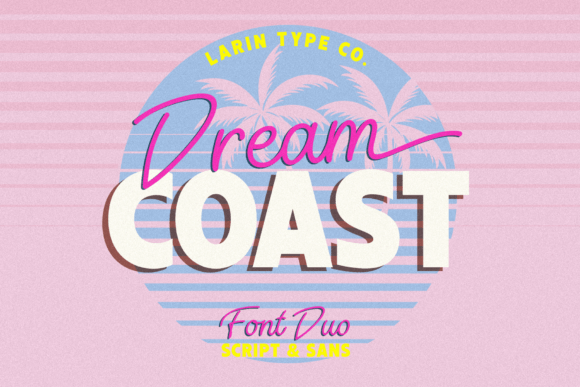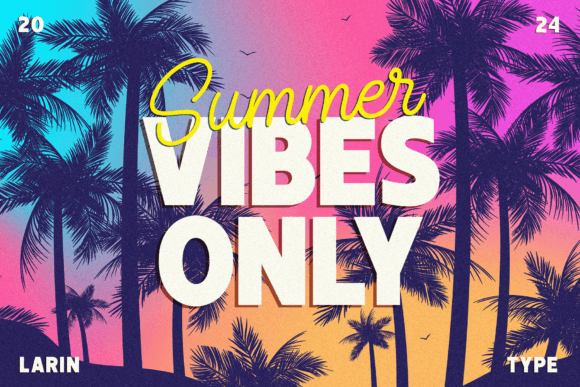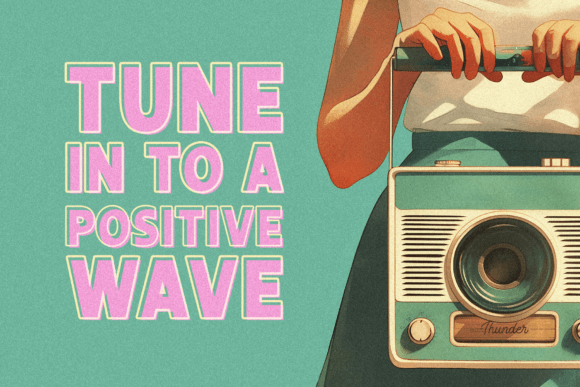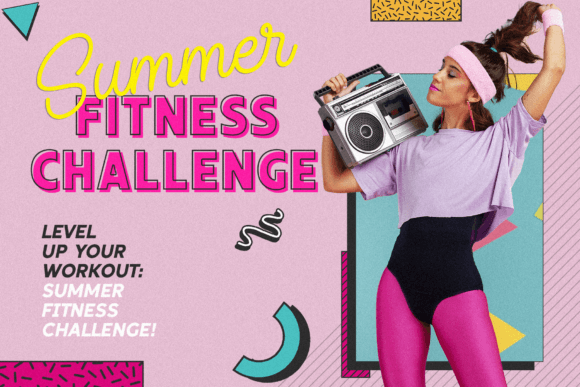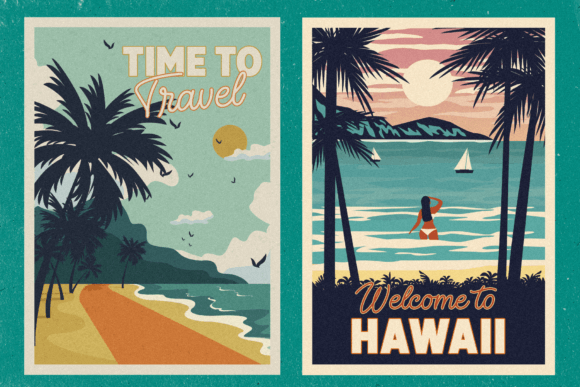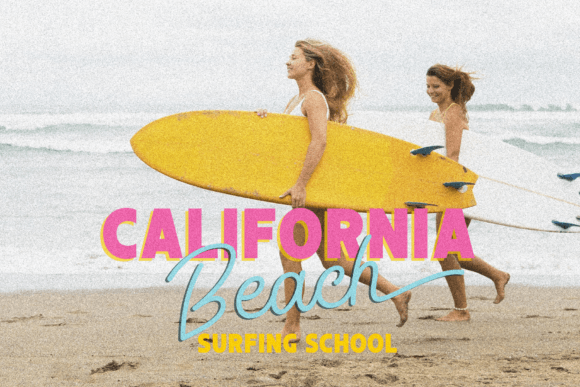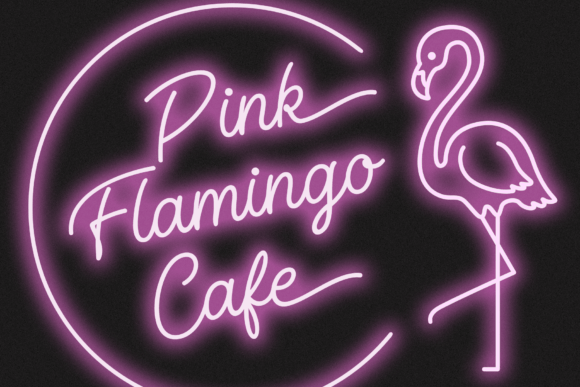
Unleash Your Creativity with Dream Coast Font
Have you ever stared at a blank page, waiting for inspiration to strike? It’s a feeling many creatives know all too well. For graphic designers, this moment can be especially daunting – but what if you had the perfect tool to spark your imagination? Introducing Dream Coast Font, a vintage duo that will transport you back to the neon-lit posters of the 80’s.
With Dream Coast Font, you’ll have access to a versatile sans serif font and a stunning monoline script, complete with alternates and end wash. Whether you’re crafting logos, designing advertisements, or creating book covers, this dynamic duo has got you covered. Its modern aesthetic and easy readability make it a valuable addition to any designer’s toolkit.
- Unique Characteristics: Dream Coast Font features a unique blend of geometric and organic shapes, with subtle rounded edges and a modern aesthetic.
Dream Coast Font Review
I recently had the chance to work with the Dream Coast Font, and overall, I’m impressed with its unique charm. ✨ The font’s distressed texture and subtle grunge vibe give it a relaxed, beachy feel that’s perfect for creative projects.
- The font’s flexibility in terms of size and spacing, making it easy to use in various design contexts.
- The unique character set, which includes a range of special characters and symbols that add to the font’s personality.
- The font’s readability, even in smaller sizes, which makes it a great choice for body text.
However, there are some limitations to keep in mind:
- The font’s texture can be a bit overwhelming if used excessively, so it’s best to balance it with simpler elements.
- The font’s availability in only a few weights and styles may limit its versatility in certain design scenarios.
Overall, the Dream Coast Font is a great choice for designers looking for a unique, creative font that adds a touch of personality to their projects. While it may have some limitations, its charm and flexibility make it a valuable addition to any design toolkit.
Tips for Getting the Most Out of Dream Coast Font
1. Use Dream Coast Font for titles, headings, and emphasis.
2. Pair Dream Coast Font with other fonts to create a visually appealing contrast.
3. Experiment with different font sizes and styles to add depth and interest.
1. Travel and tourism branding.
2. Beach and outdoor-themed designs.
3. Creative and inspirational quotes.
Alternatives to Dream Coast Font
Great Vibes is a modern, elegant script font that is perfect for creating a relaxed and friendly atmosphere. It’s ideal for use in branding, advertising, and packaging design. Great Vibes has a more fluid and connected feel compared to Dream Coast Font, making it suitable for longer text passages.
Carolyna Pro is a beautiful, high-end script font that exudes luxury and sophistication. It’s perfect for use in high-end branding, fashion, and interior design. Carolyna Pro has a more refined and elegant feel compared to Dream Coast Font, making it suitable for use in upscale contexts.
Alex Brush is a classic, elegant script font that is perfect for creating a timeless and sophisticated look. It’s ideal for use in branding, advertising, and editorial design. Alex Brush has a more formal and traditional feel compared to Dream Coast Font, making it suitable for use in conservative contexts.